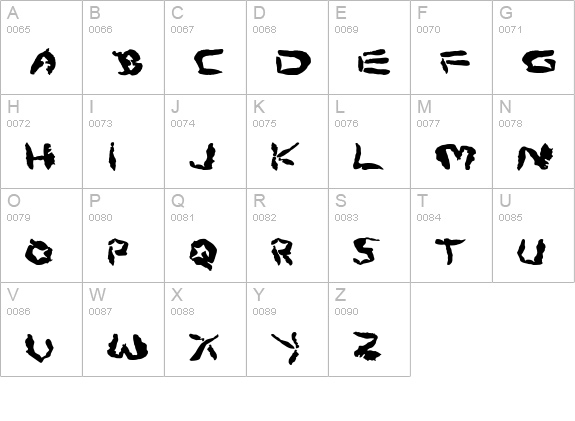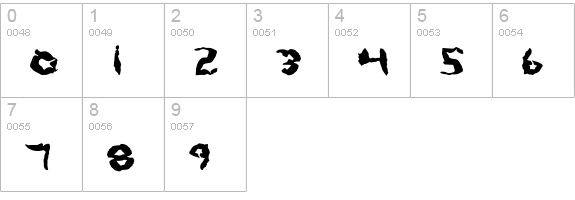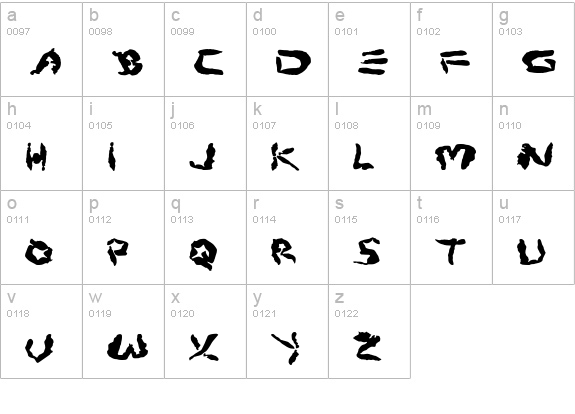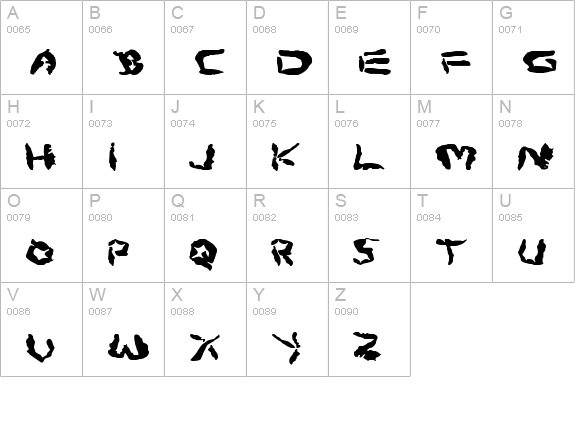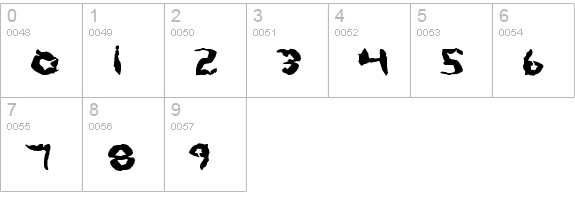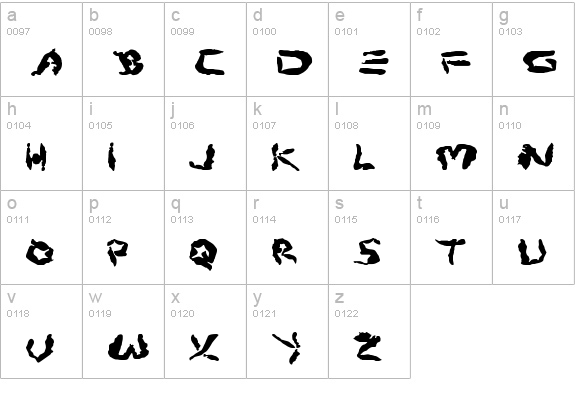
Protoplasm Font Details
Introducing Protoplasm font, a stunning typeface that effortlessly blends modern aesthetics with a touch of whimsy. This versatile font features a unique combination of sharp edges and fluid curves, making it perfect for a wide range of design projects. Whether you're creating a sleek branding campaign or a playful invitation, Protoplasm font is sure to make a bold statement. One of the best things about Protoplasm font is that it is completely free to download at FontsMarket.com. This means that you can easily add this eye-catching font to your collection without breaking the bank. With its sleek lines and contemporary appeal, Protoplasm font is a must-have for any designer looking to add a touch of style to their projects. Download Protoplasm font today and unleash your creativity with this versatile and dynamic typeface. Whether you're designing a poster, website, or logo, Protoplasm font is sure to elevate your project to the next level. Don't miss out on this fantastic opportunity to access a high-quality font for free. Download Protoplasm font now at FontsMarket.com and start creating stunning designs today!